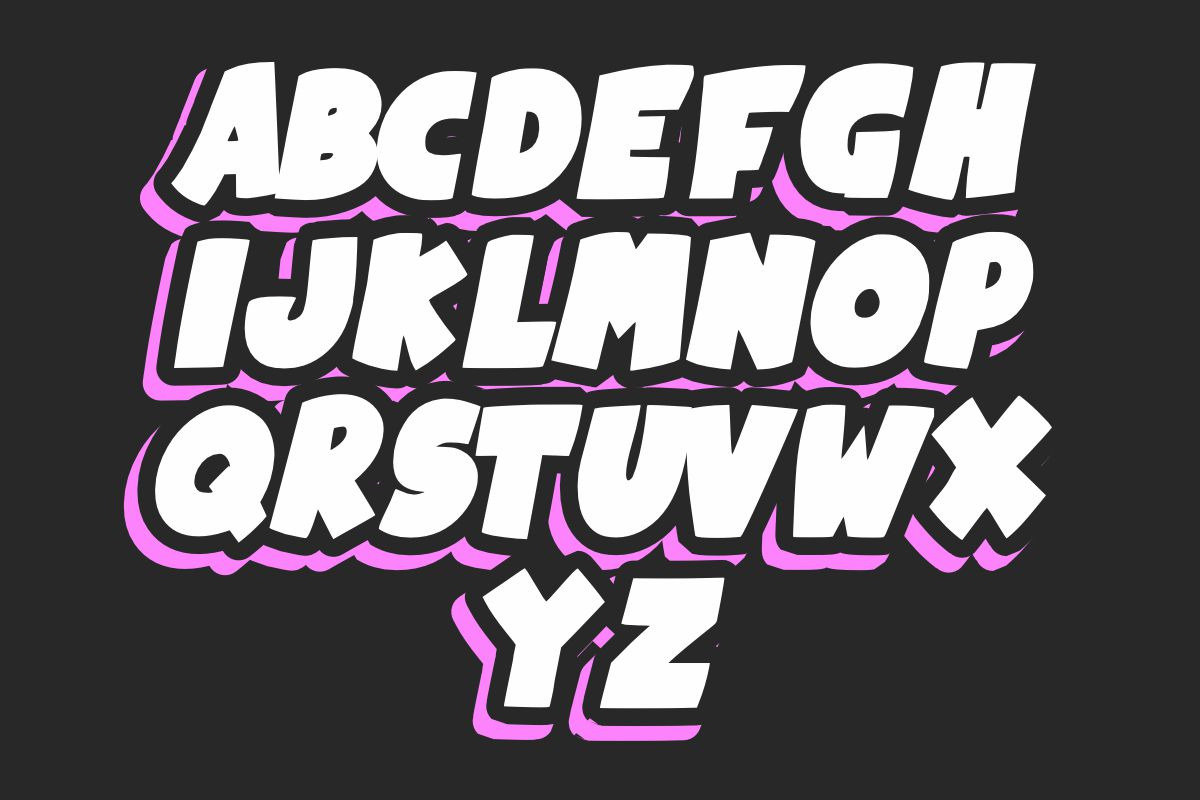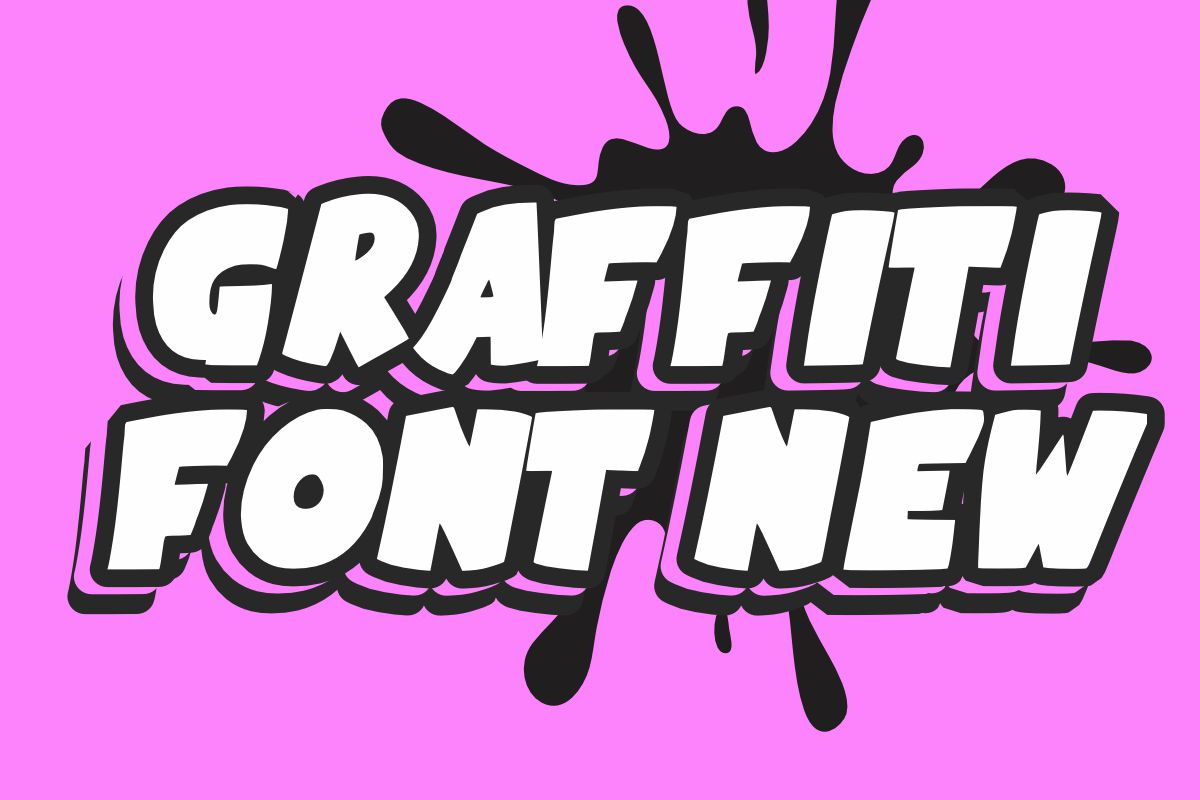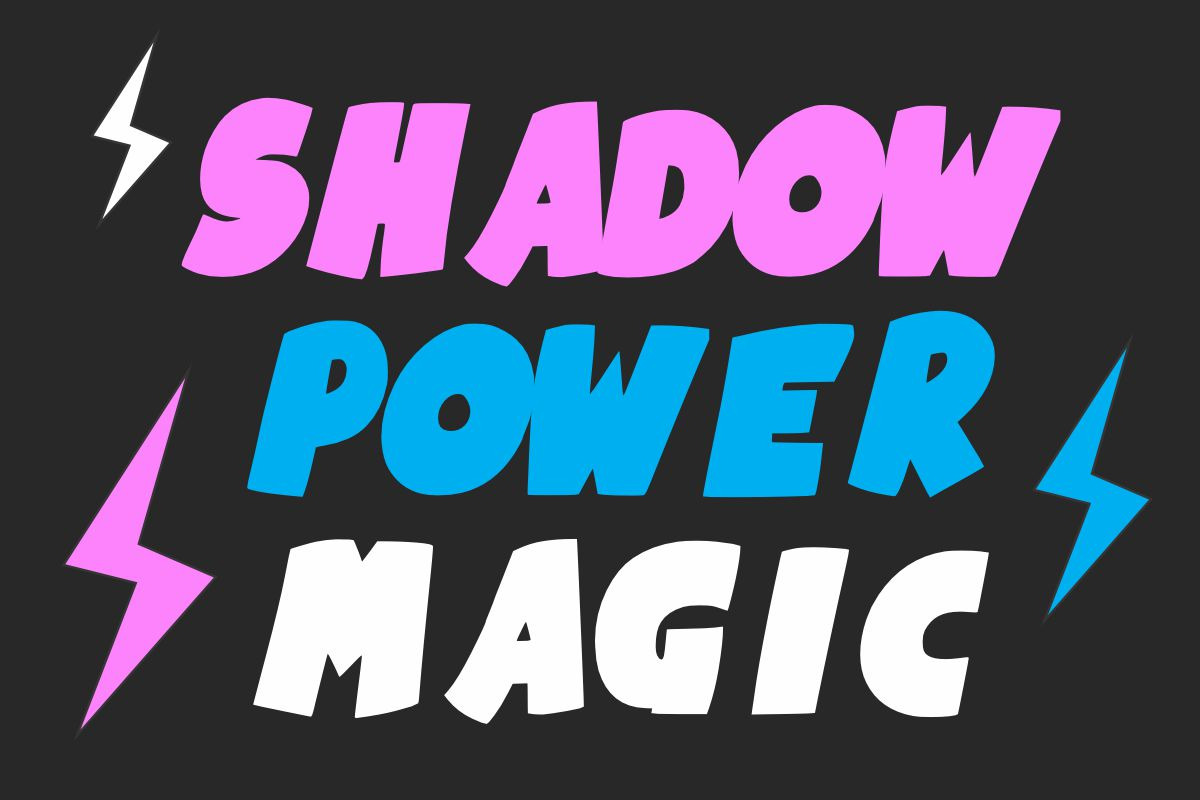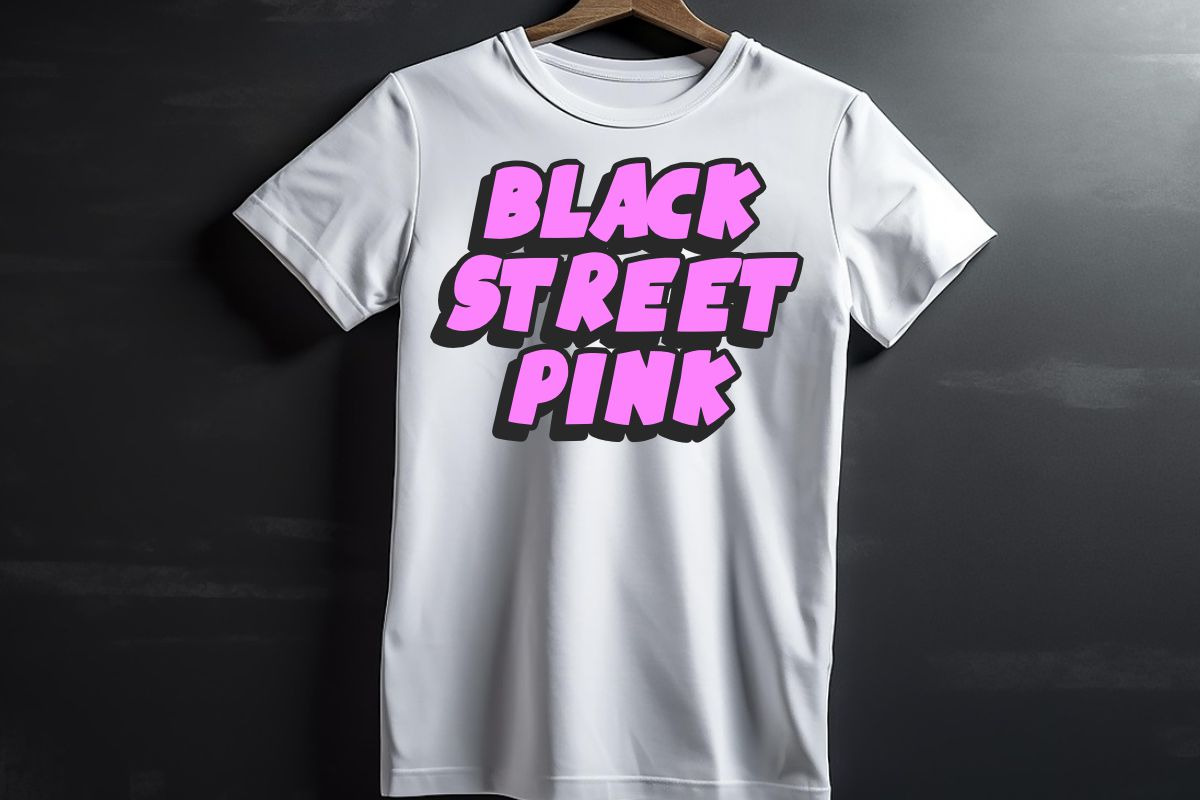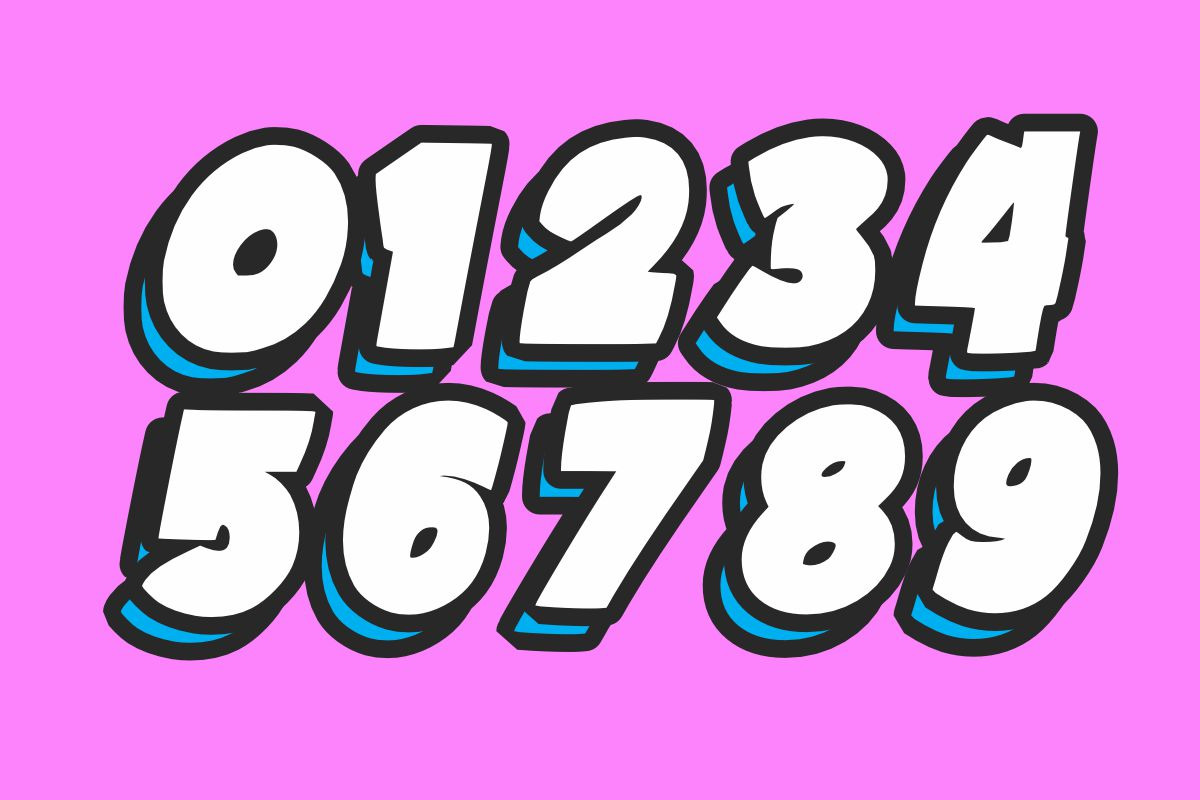
Street Spirit
Street Spirit brings playful street energy to your layouts. This graffiti-style cartoon display typeface features chunky bubble shapes, soft rounded corners, and a lively hand-drawn rhythm that pops on screens and print. Thick strokes, open counters, and tight spacing deliver instant impact for short titles, while the forms love bold fills, outline and drop-shadow effects, or sticker-style color blocking. Perfect for winter and holiday branding, product packaging, invitations, quotes, T-shirts, labels, posters, text effects, and logo marks. Pair it with a neat sans for details, or let Street Spirit shout solo—wherever you need fun, urban personality with kid-friendly charm.